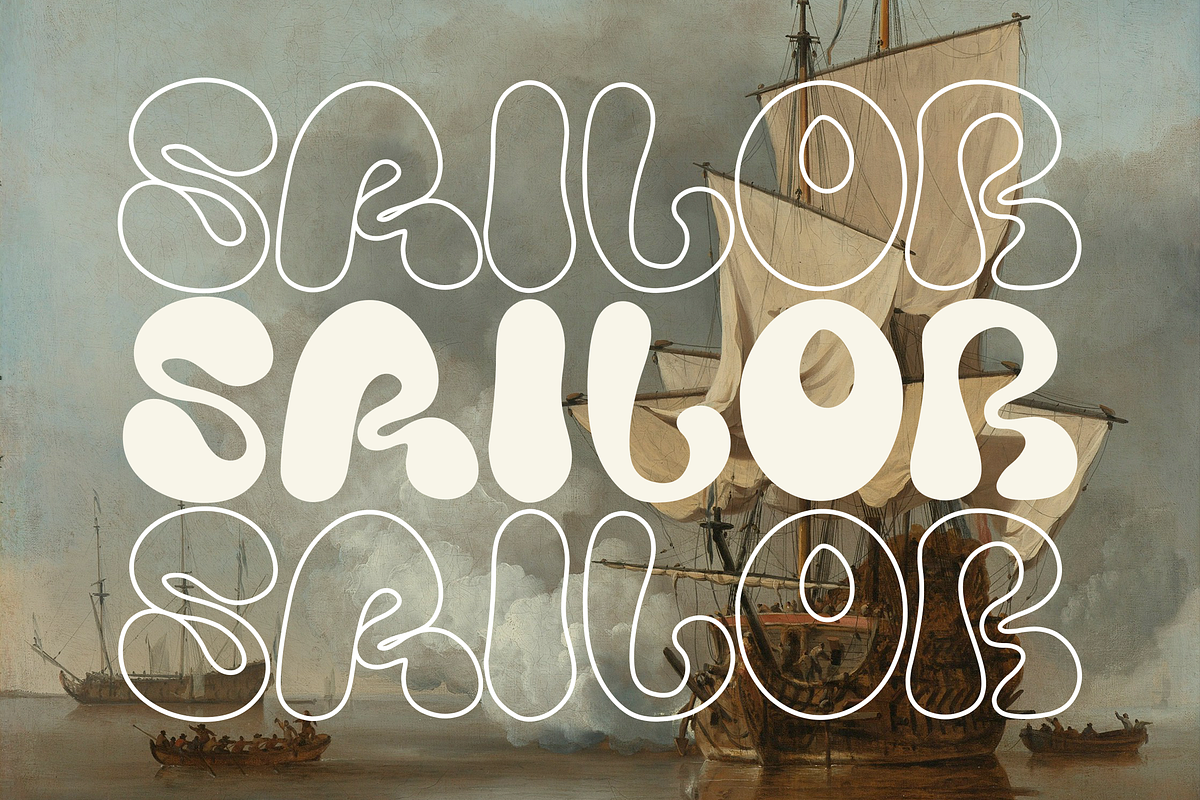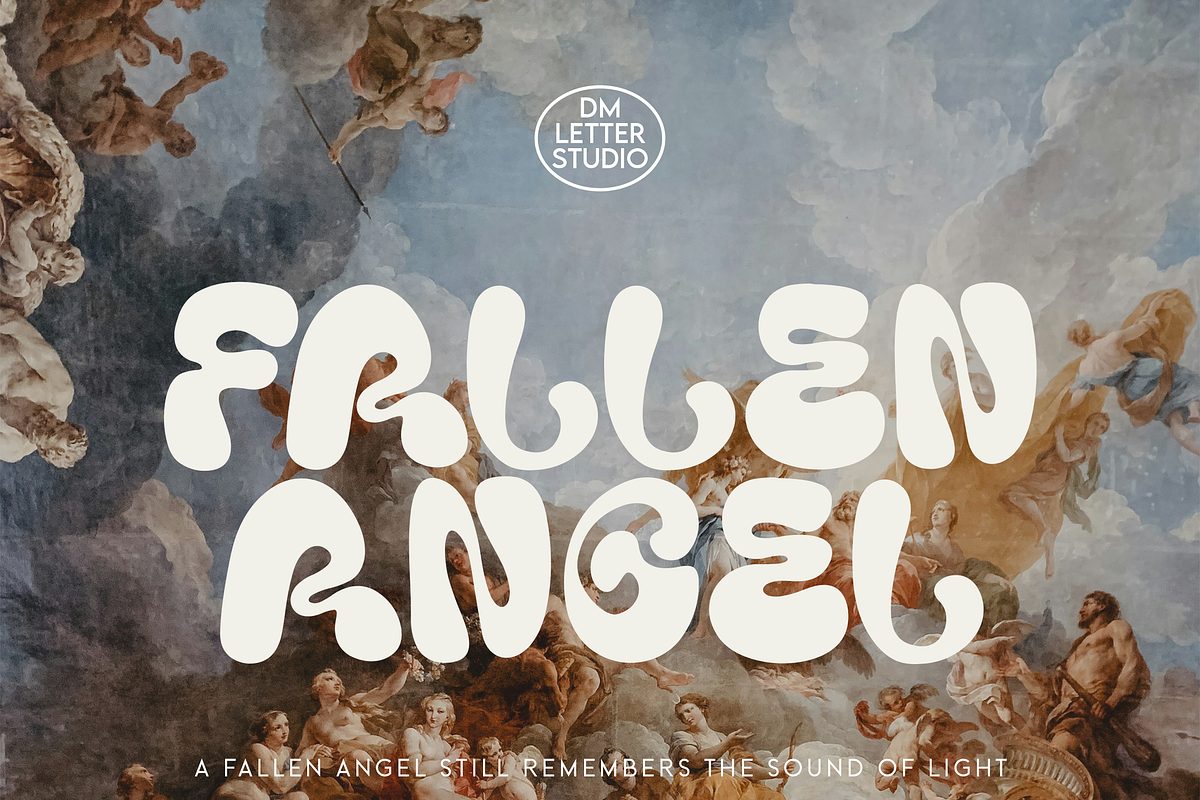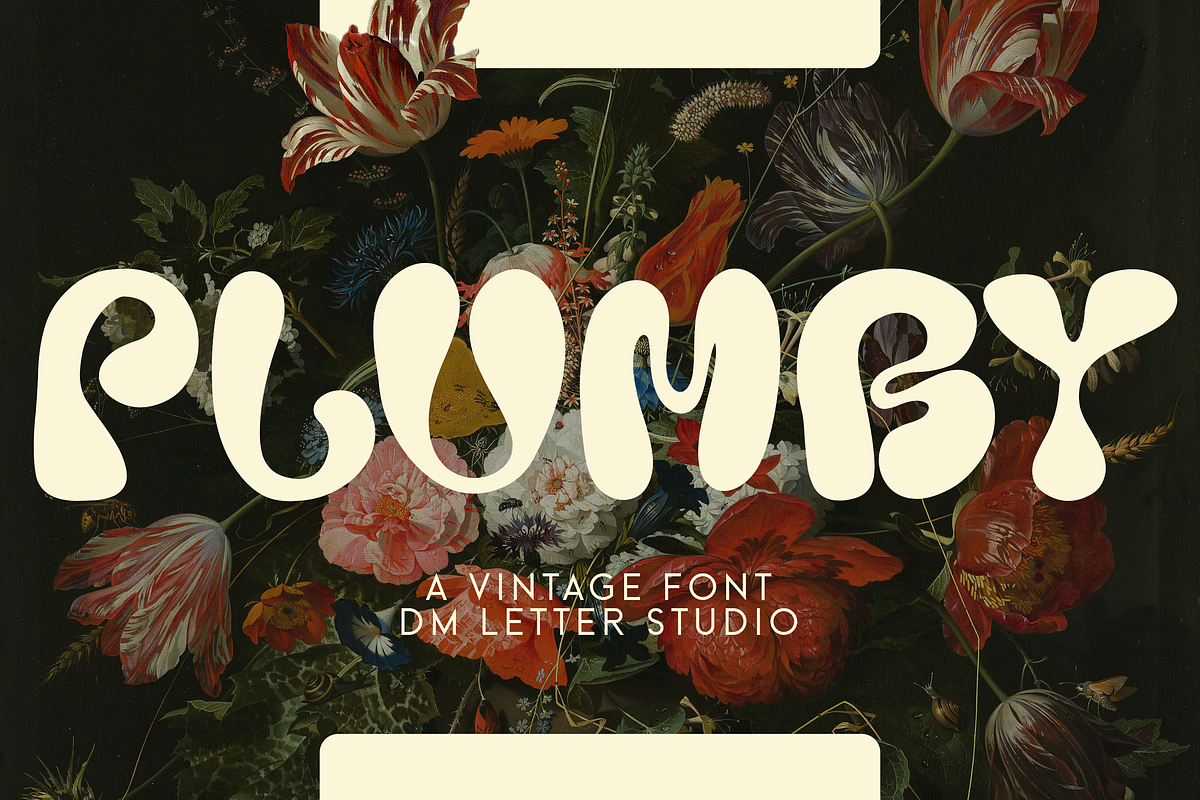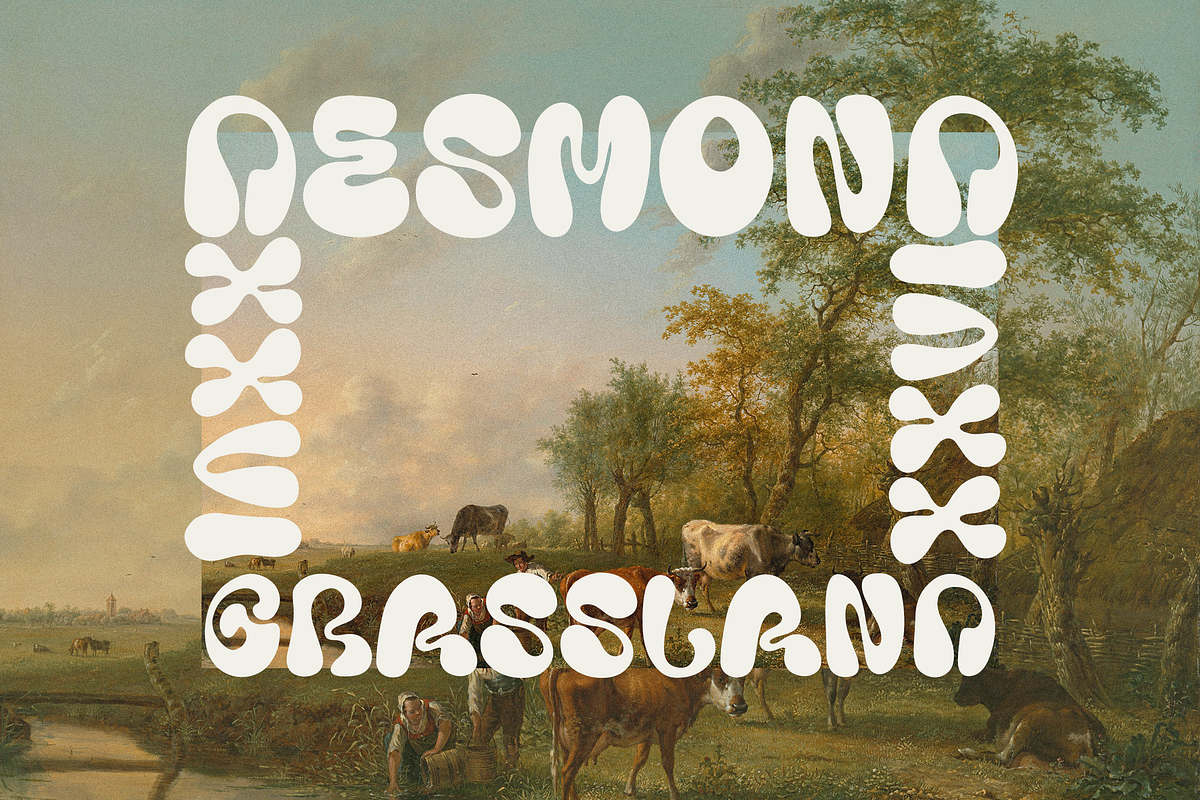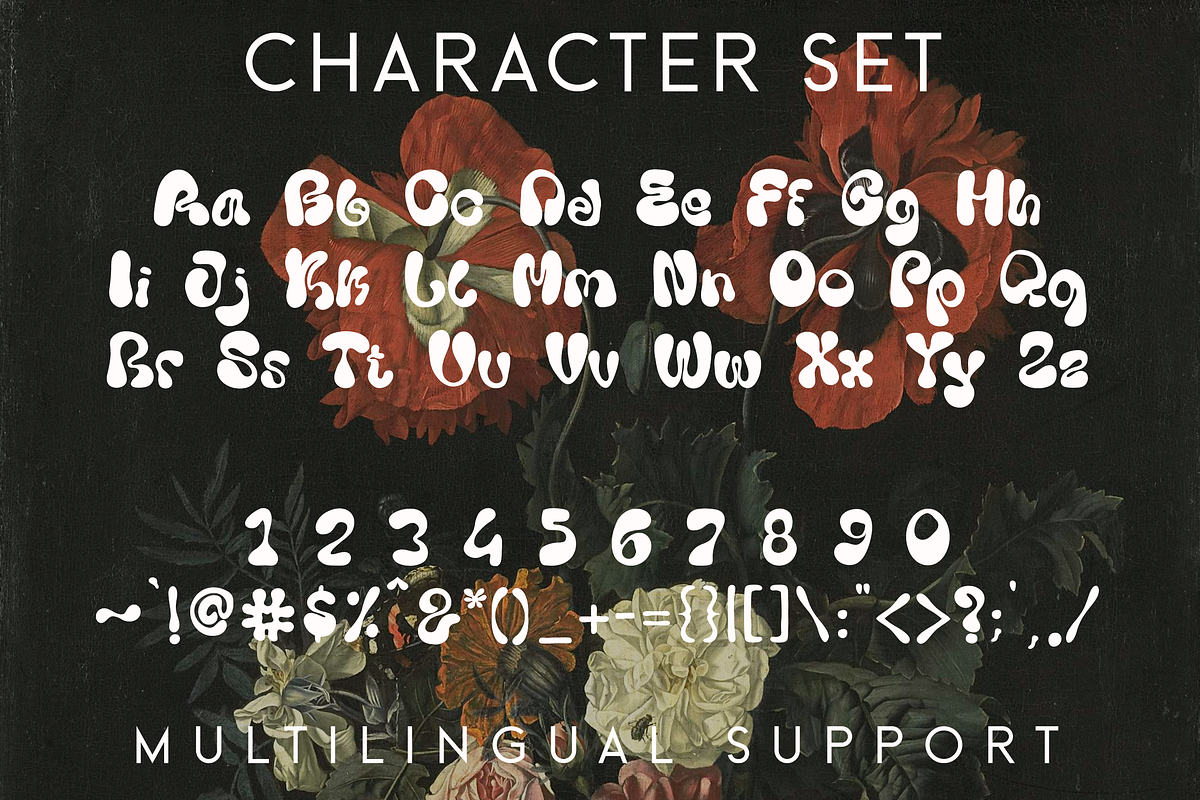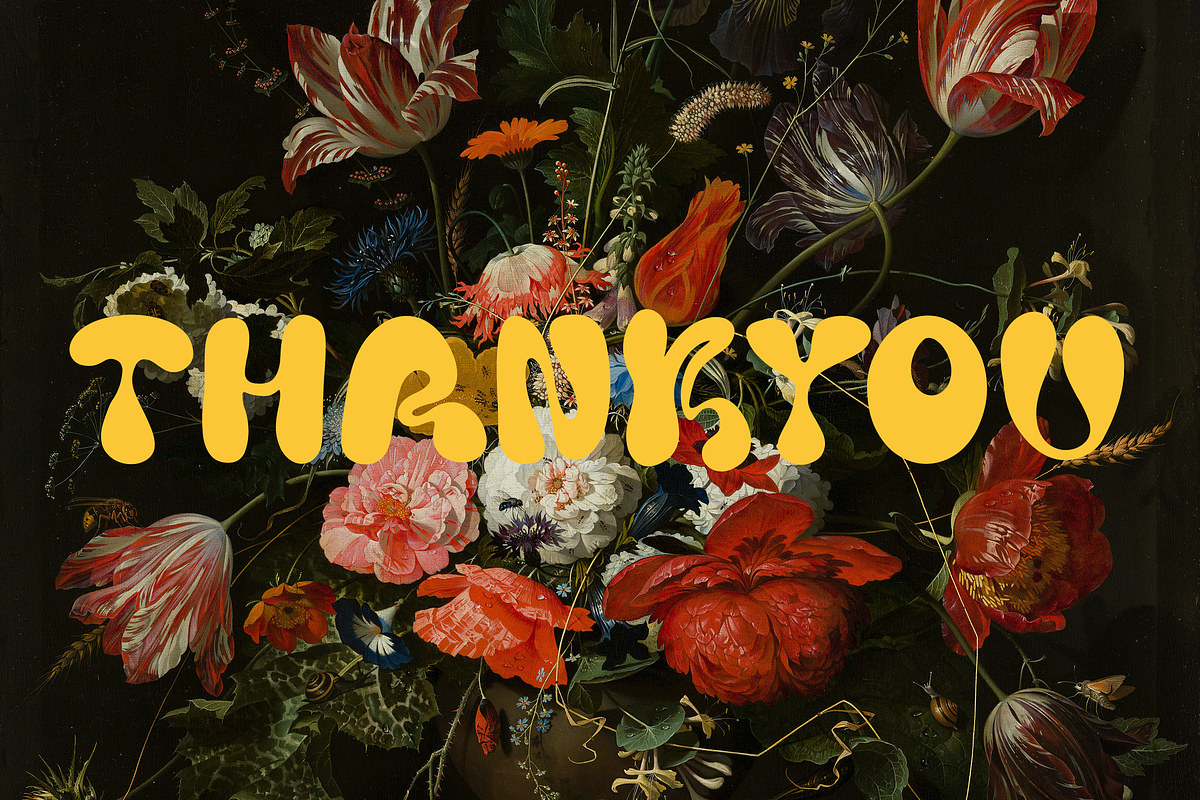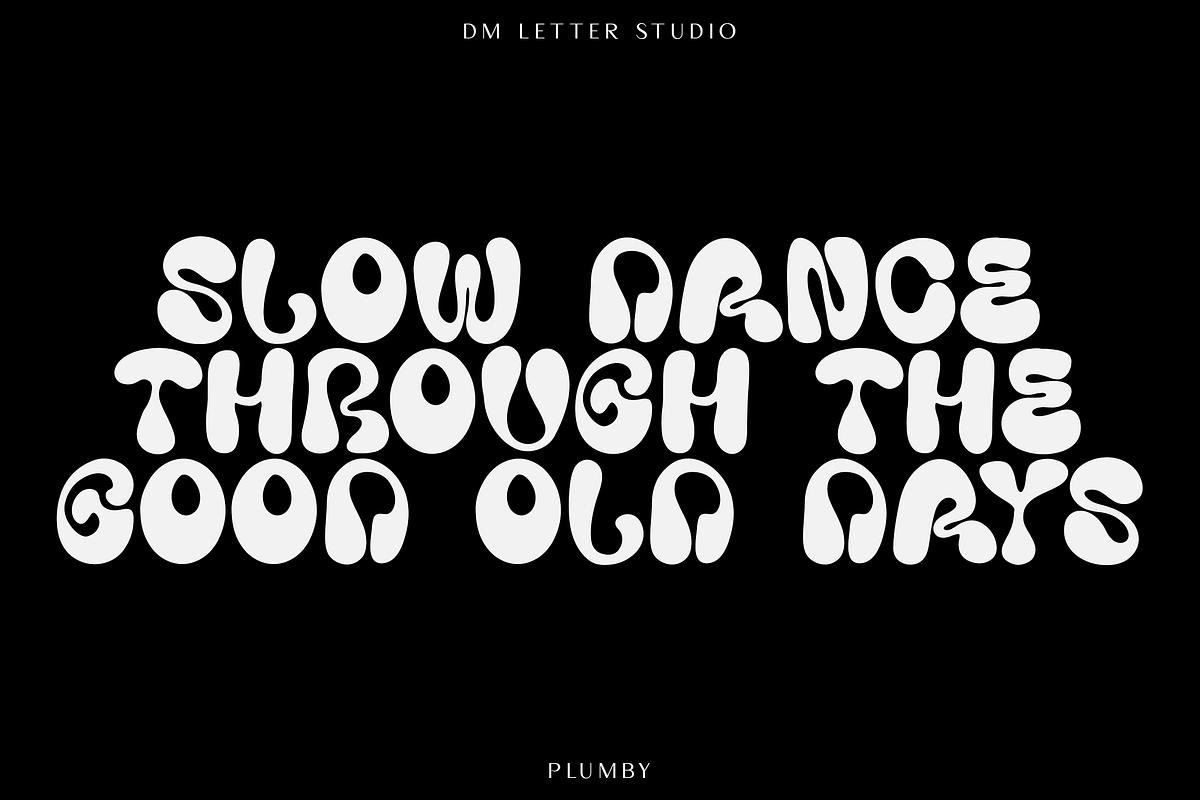
Plumby
Meet Plumby, the Vintage Font
Plumby is a vintage display font with a warm retro vibe and bold letter shapes that feel nostalgic and confident. The curves are smooth and the forms stay readable, so it looks great on both small labels and big headlines. Because the silhouettes are strong, Plumby holds up beautifully in print and on screen. Use it for retro logos, café menus, product labels, poster titles, packaging, apparel, stickers, and social media graphics. As a result, your designs get that classic throwback charm in seconds.
Fast layouts with the Plumby Vintage Font
Start with a short headline and keep it bold. After that, add supporting text in a simple font to keep everything readable. Because Plumby has strong shapes, it works well for badges, arches, and stacked layouts. In addition, it shines on curved labels, sign-style frames, and vintage stamp shapes, so you can build a full label set quickly. Finally, try palette pairs like cream & cocoa, mustard & navy, cherry & off-white, or sage & charcoal to lock in the retro mood.
Creative uses and quick wins
- Retro logo marks, brand badges, and café signs
- Product labels for coffee, soap, candles, and snacks
- Poster titles, event flyers, and menu headers
- T-shirts, stickers, mugs, and tote designs
Design tips for Plumby Vintage Font
Keep phrases short so the vintage personality stays strong. Also, add a thin outline or a subtle shadow to boost contrast on busy backgrounds. For a real retro finish, try paper textures, halftone dots, or a soft grain overlay. Finally, export at 300 DPI for print and at 2× size for web so edges stay crisp everywhere.